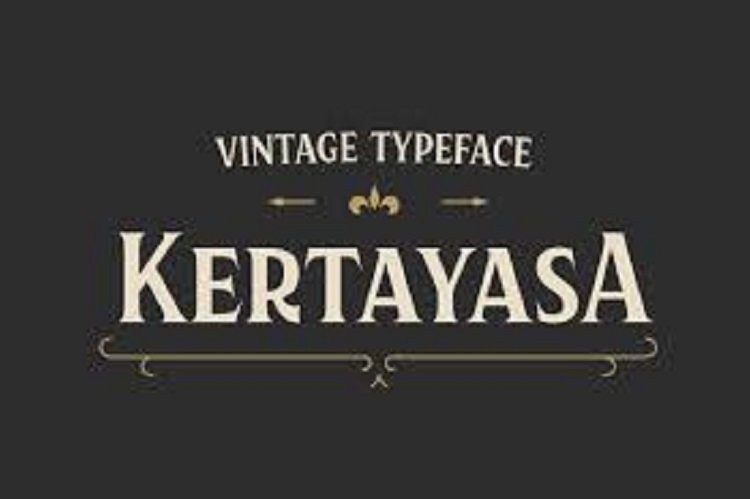
Kertayasa Font
Kertayasa is an Elegant Vintage typeface. The name is taken from Sansekerta which has Dignity and happiness as the meaning. Suitable for Headline and More!.